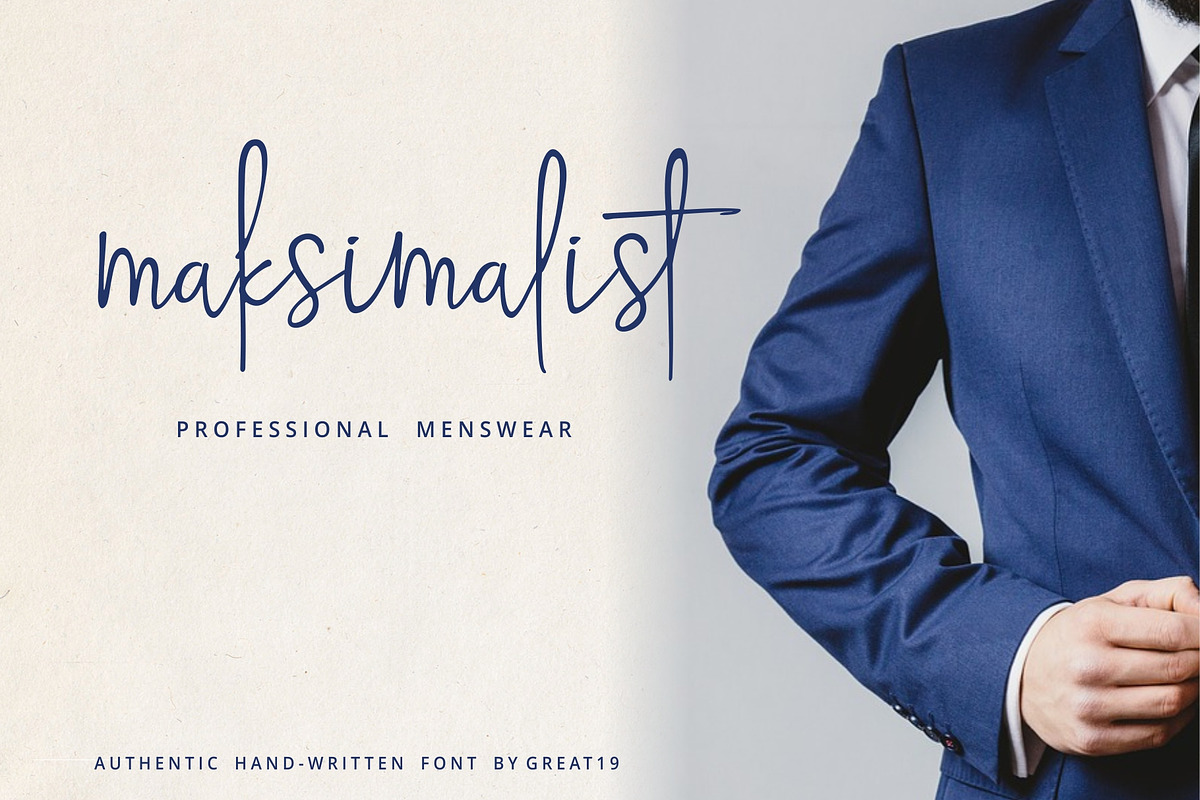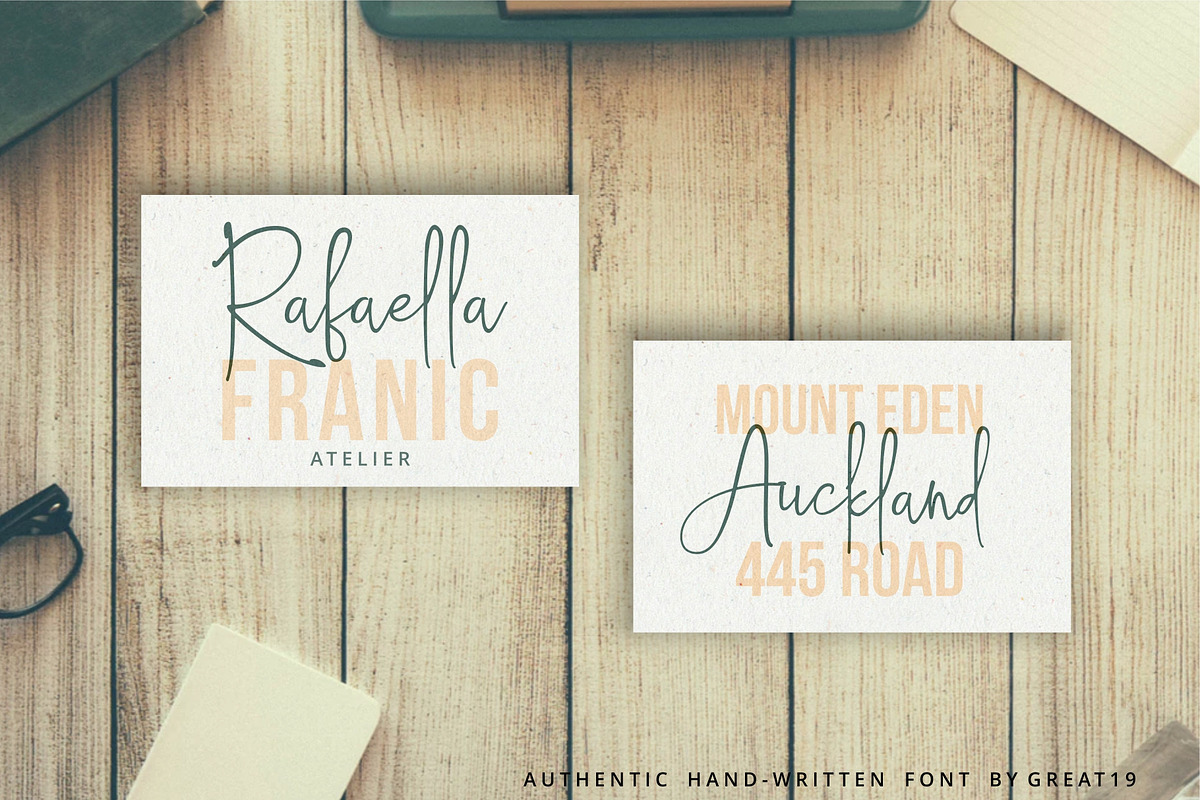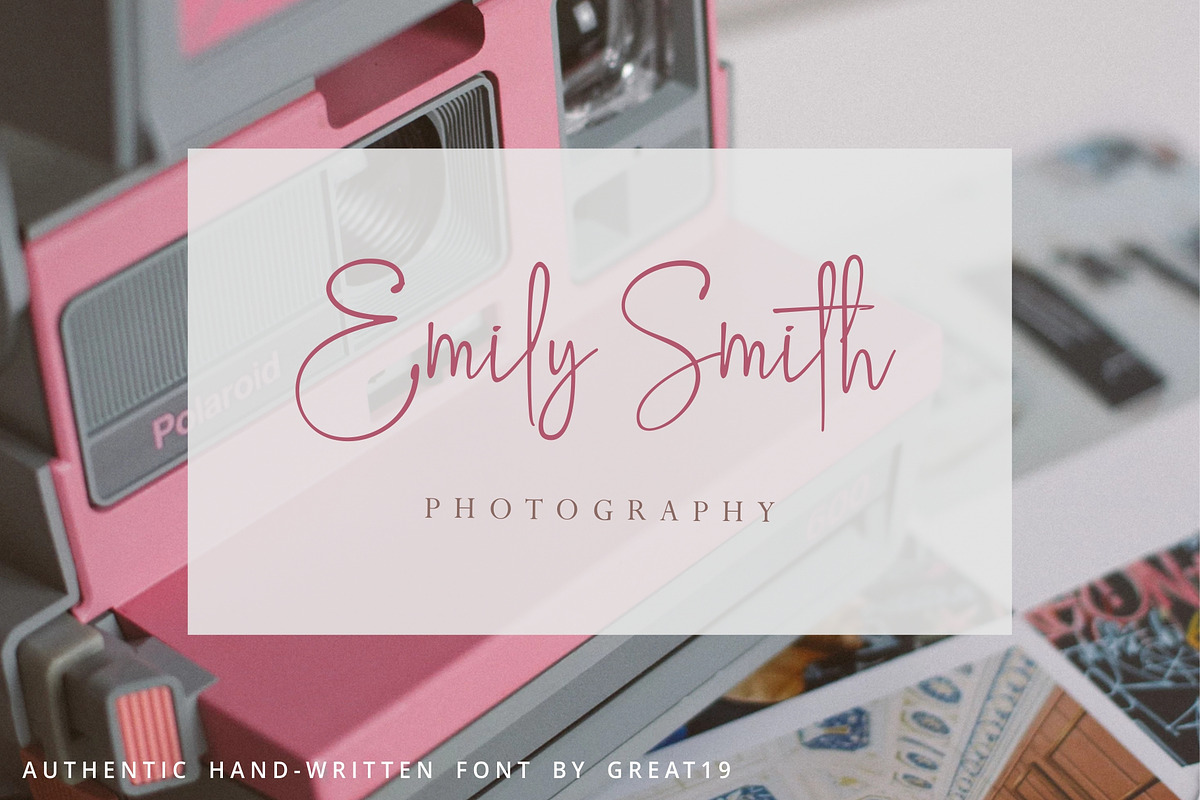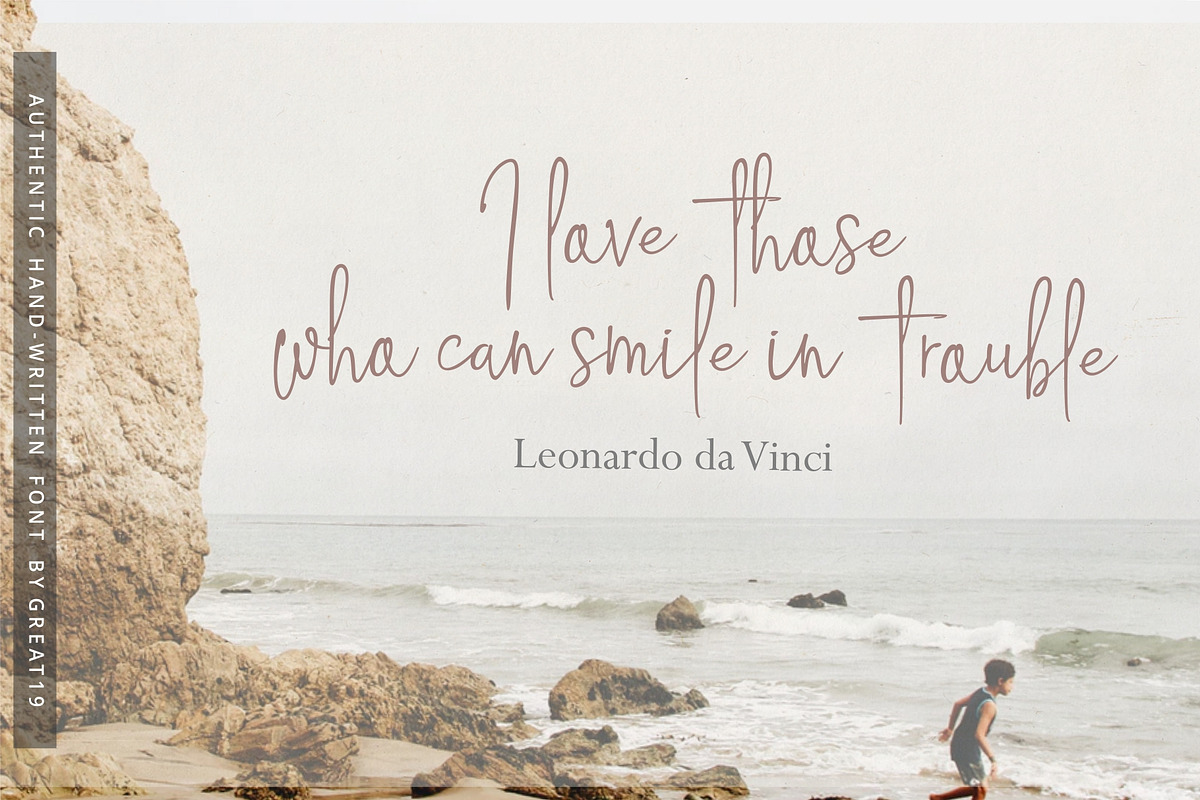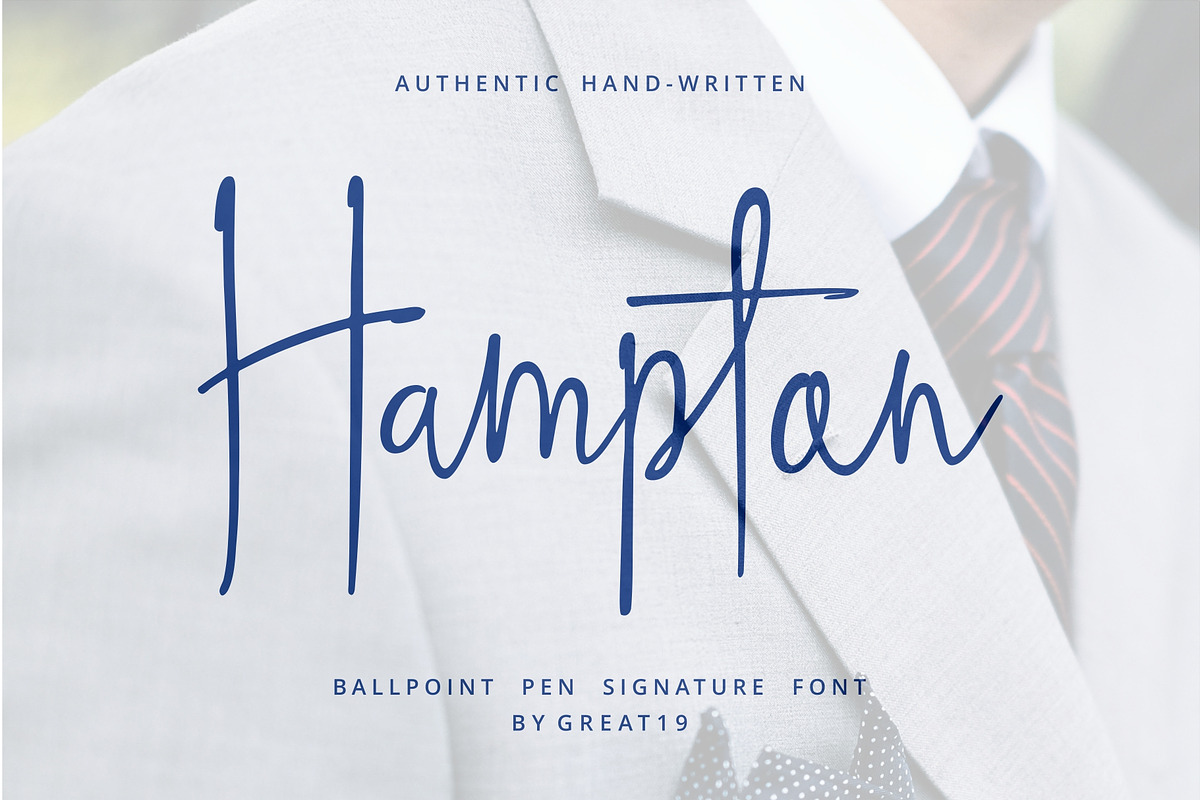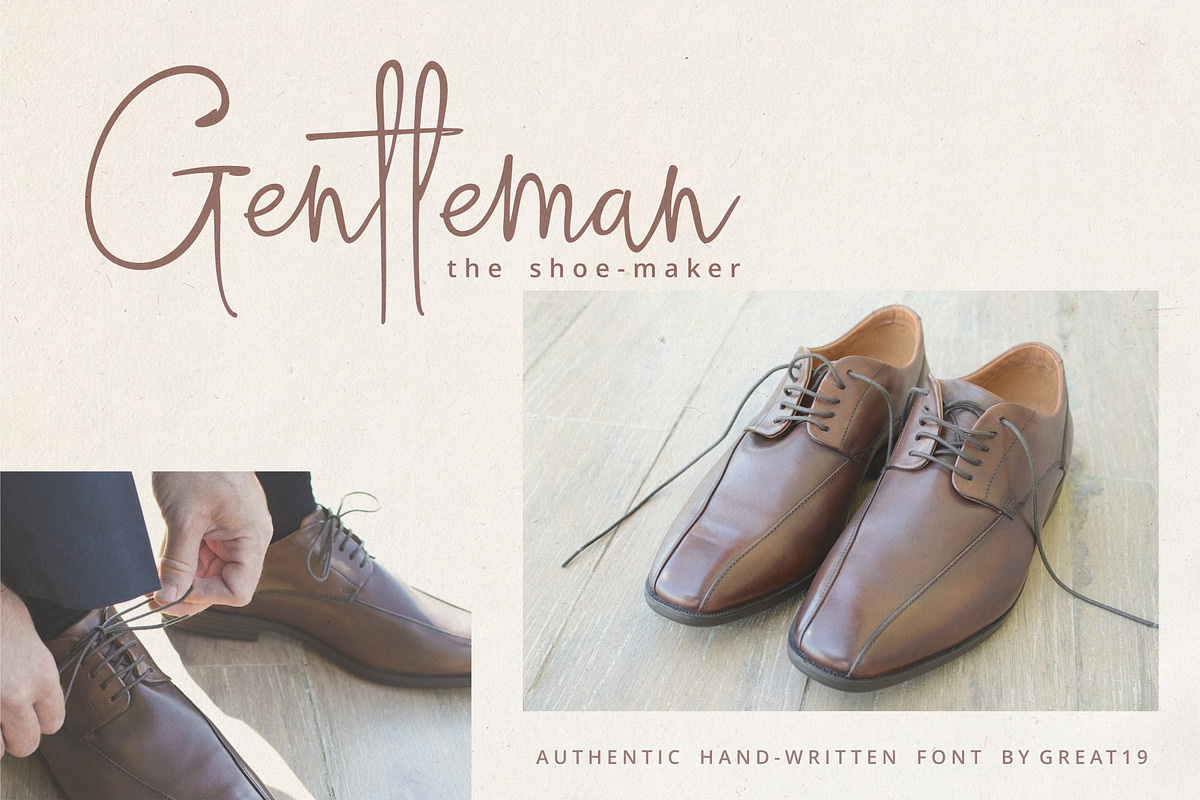
Hampton Signature Font
Hampton is a hand-written signature font, it was made using a 1.0 mm ballpoint pen to get the authentic of its stroke and carefully converted to a font. sophisticated, authentic, unique, high-end, and fancy are the perfect words to describe this signature font.
this font is perfect for logotype, branding , magazine, watermark, tittle, business card and every design that need a unique signaturized feel.